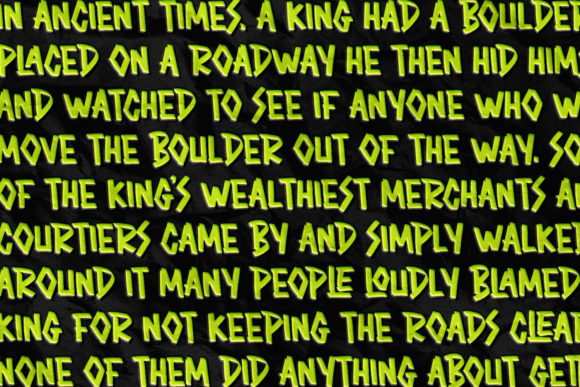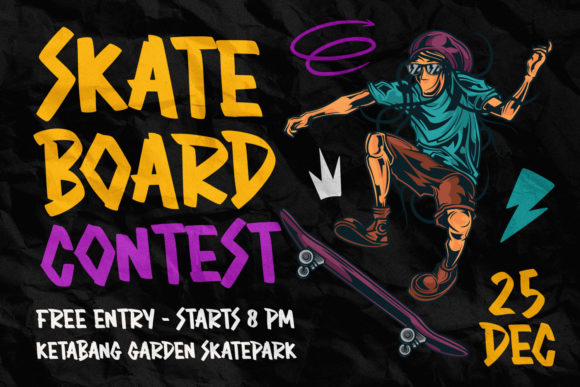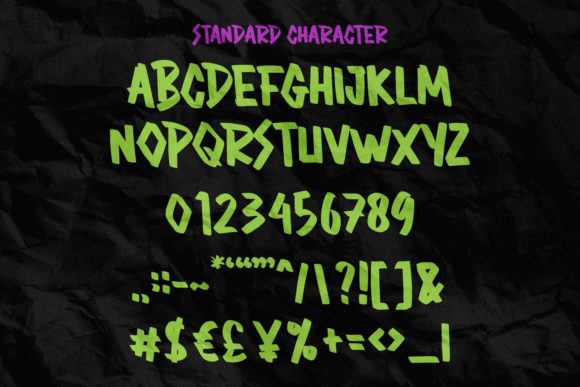
Introduction to Carlos Borgla Font
Carlos Borgla is a cool and chunky lettered display font.
Add this unique display font to each of your creative ideas, and notice how it makes them come alive .